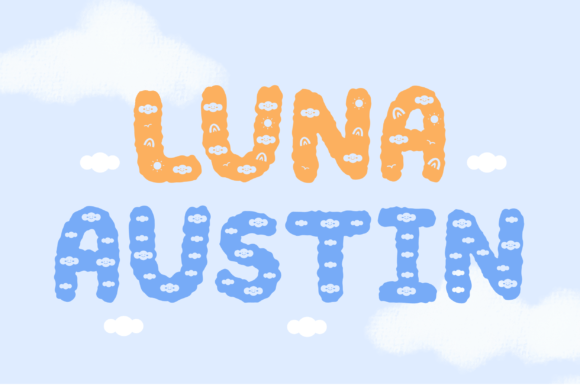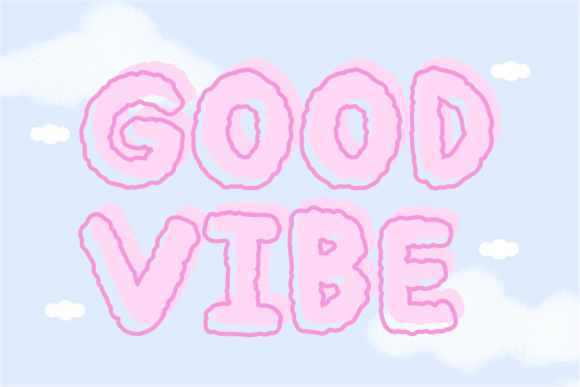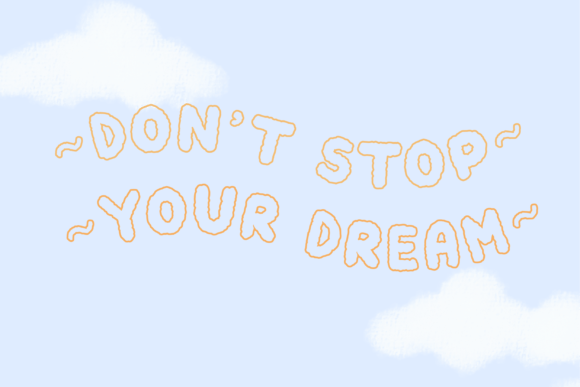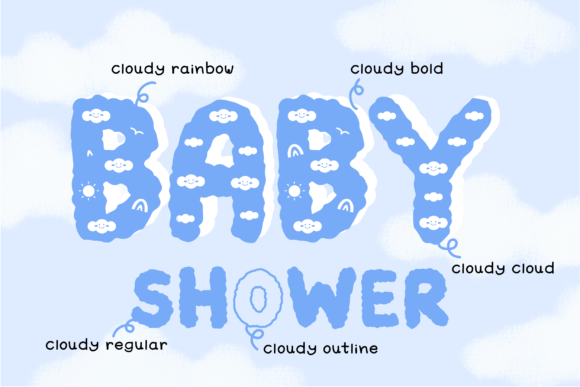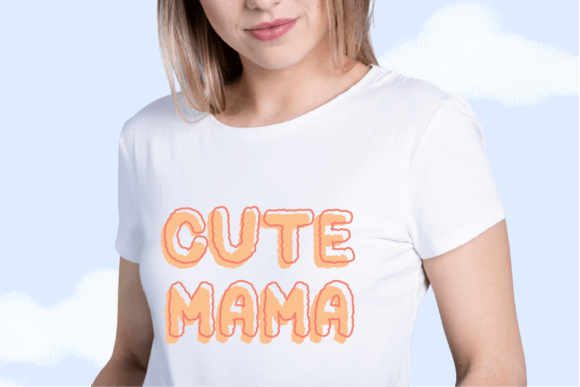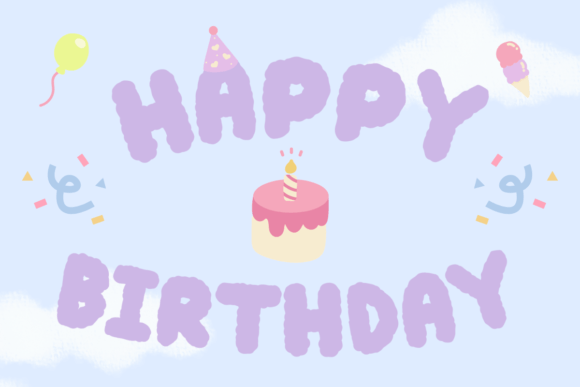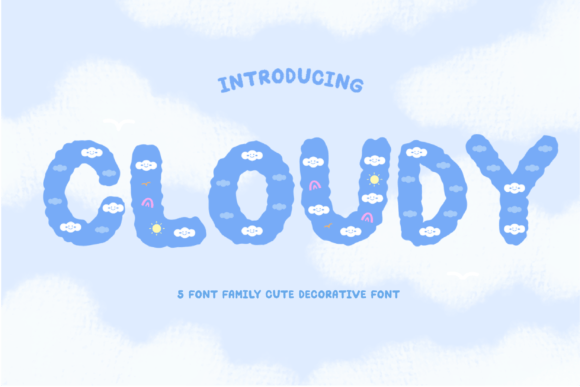
Introducing Cloudy Font: The Whimsical and Playful Typeface for Creative Projects
Are you looking for a font that can add a touch of charm and playfulness to your creative projects? Look no further than Cloudy Font, a decorative typeface that features fluffy, cloud-like shapes with adorable facial expressions. In this article, we’ll take a closer look at Cloudy Font, its unique characteristics, and how you can use it to elevate your designs.
What is Cloudy Font?
Cloudy Font is a decorative font that is designed to bring a sense of whimsy and playfulness to your designs. The letters are soft and rounded, with a cloud-like appearance that is sure to delight. Each letter features a unique facial expression, adding an extra layer of personality to your text.
Key Features of Cloudy Font
- Fluffy, cloud-like shapes: The letters in Cloudy Font are designed to resemble fluffy clouds, giving your text a light and airy feel.
- Adorable facial expressions: Each letter features a unique facial expression, adding a touch of personality to your text.
- Soft and rounded: The letters in Cloudy Font are soft and rounded, giving your text a whimsical and playful feel.
- Perfect for creative projects: Cloudy Font is ideal for adding a touch of charm to children’s books, greeting cards, and other creative projects.
Uses for Cloudy Font
Cloudy Font is a versatile typeface that can be used in a variety of creative projects. Here are a few ideas to get you started:
- Children’s books: Cloudy Font is perfect for adding a touch of whimsy and playfulness to children’s books.
- Greeting cards: The adorable facial expressions and soft, rounded letters make Cloudy Font ideal for greeting cards.
- Invitations: Add a touch of charm to your invitations with Cloudy Font.
- Signs and posters: Cloudy Font is a great choice for signs and posters that need to grab attention and add a touch of personality.
Tips for Using Cloudy Font
Here are a few tips for using Cloudy Font in your designs:
- Use it sparingly: Cloudy Font is a decorative typeface, so it’s best to use it sparingly to add emphasis and personality to your text.
- Pair it with a simple font: Pair Cloudy Font with a simple font to create contrast and add visual interest to your design.
- Experiment with colors: Cloudy Font looks great in a variety of colors, so don’t be afraid to experiment and find the perfect hue for your design.
Cloudy Font is a unique and playful typeface that is perfect for adding a touch of charm to your creative projects. With its fluffy, cloud-like shapes and adorable facial expressions, Cloudy Font is sure to delight designers and crafters alike. Whether you’re working on a children’s book, greeting card, or other creative project, Cloudy Font is a great choice for adding a touch of whimsy and personality to your design.